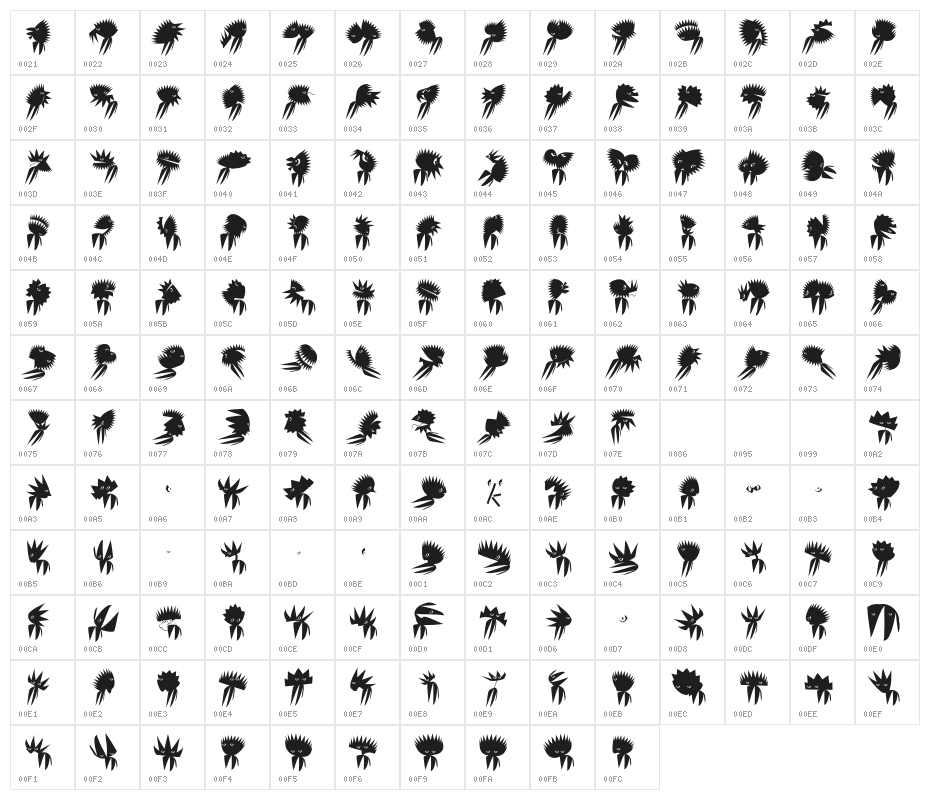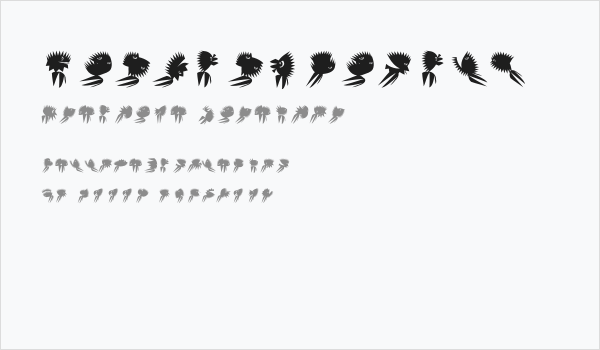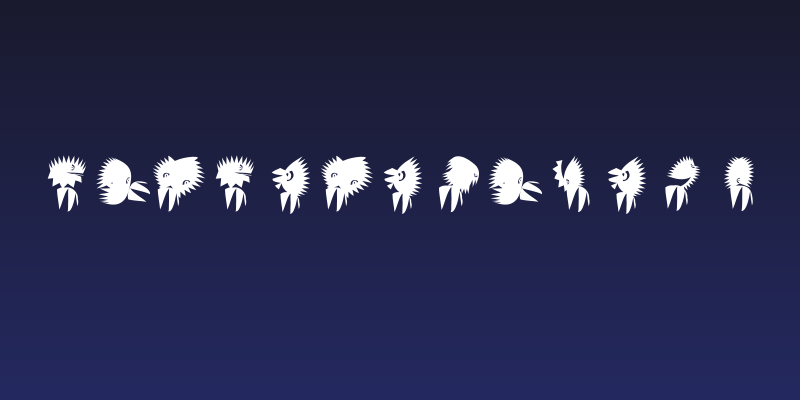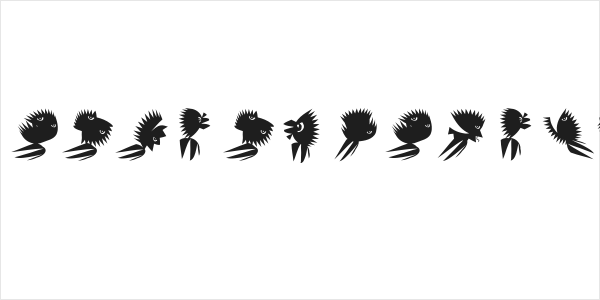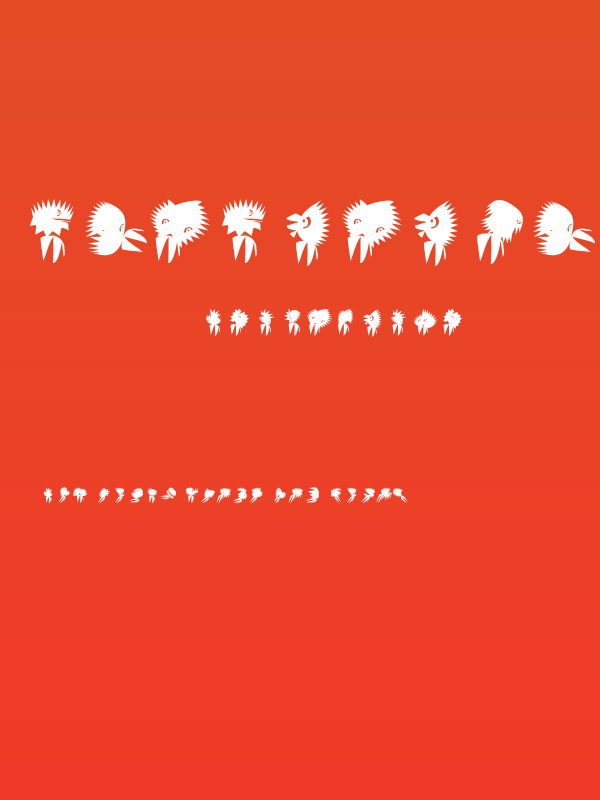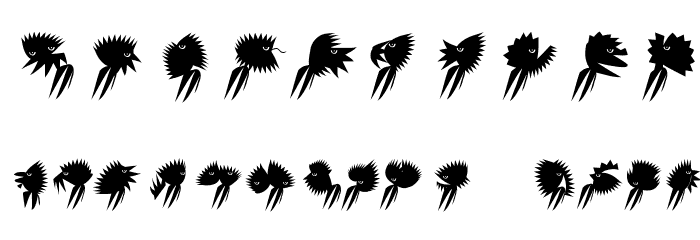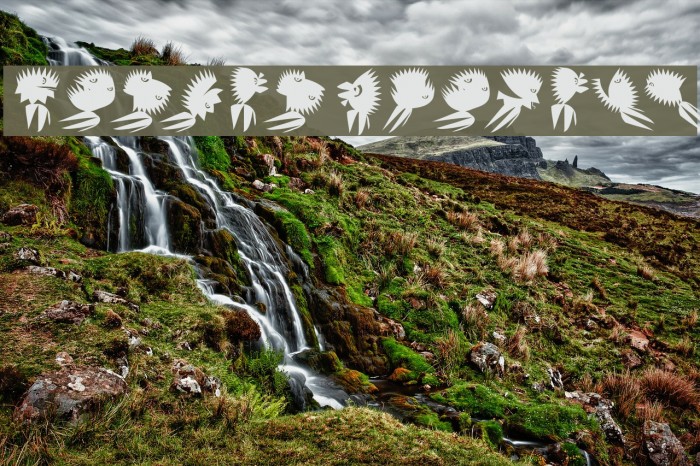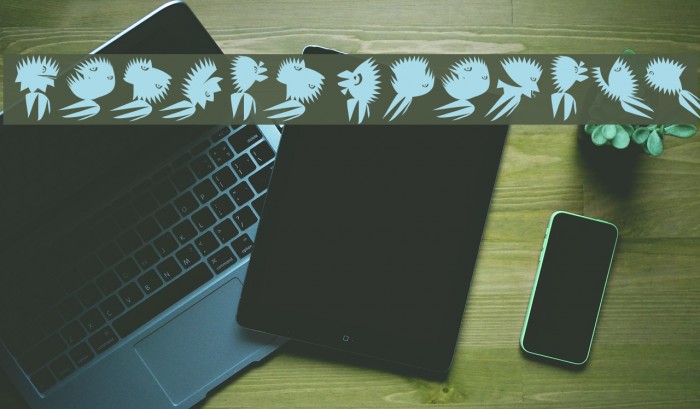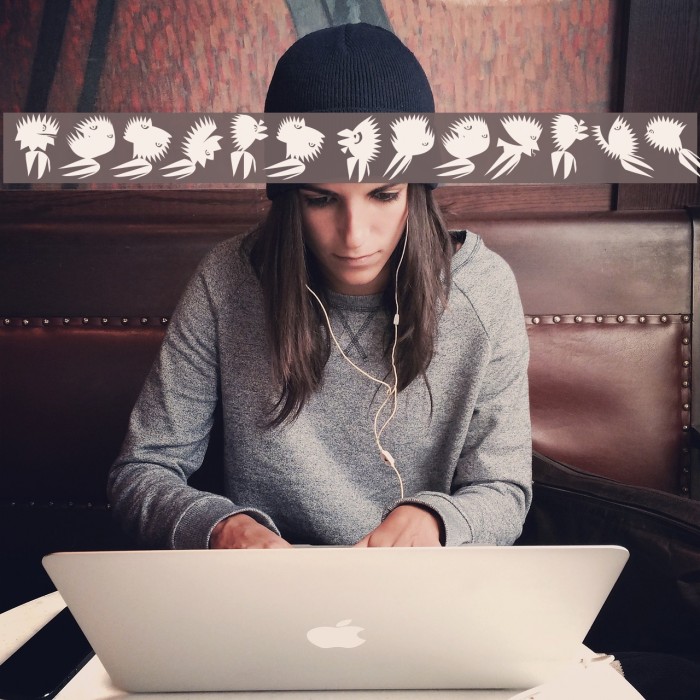
ZigzagAnimals Font
A highly decorative and playful font where each character is represented by a unique, abstract animal silhouette with jagged, zigzag edges and exaggerated features. The glyphs are bold, filled black shapes with high visual impact, making each letterform distinct and whimsical.
| Overall Style | Decorative, Playful, Whimsical |
| Use Case | Logos, Headlines, Posters, Children’s materials |
| Proposed Projects | Children’s books, playful branding, posters, creative invitations, educational materials. |